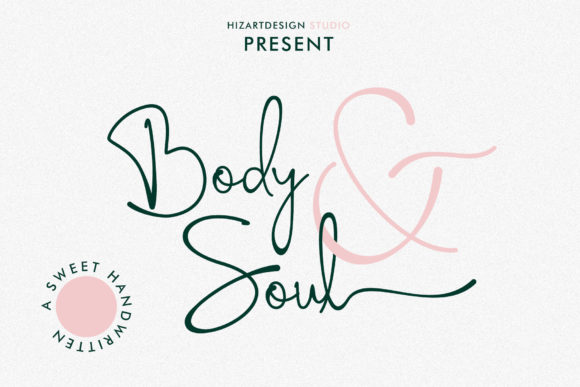
**Body & Soul: A Script Font with Heart and Grace**
Prepare to be captivated by Body & Soul, a script font that exudes elegance and charm. Crafted with meticulous care, each letter flows with a natural, handwritten grace that will elevate your designs to new heights.
Unleash your creativity with Body & Soul's versatile nature. Whether you're crafting heartfelt wedding invitations, creating exquisite stationary art, or making your social media posts shine, this font will add a touch of magic to every project.
Immerse yourself in the world of Body & Soul and discover a symphony of glyphs and swashes that will ignite your imagination. The PUA encoding ensures effortless access to a treasure trove of characters, giving you endless possibilities to express yourself.
With Body & Soul, you'll find a font that not only captivates the eye but also stirs the soul. Its delicate strokes and graceful curves evoke a sense of intimacy and warmth that will make your designs truly unforgettable.
Don't let your words be confined to ordinary fonts. Embrace the artistry of Body & Soul and watch as your designs blossom into masterpieces of expression.
**Body & Soul: The Perfect Font for Your Creative Endeavors**
Prepare to fall head over heels for Body & Soul, a script font that embodies the essence of romance and creativity. With its thin, elegant strokes and captivating style, this font will add a touch of magic to every project you undertake.
Imagine your wedding invitations adorned with the flowing grace of Body & Soul. The delicate curves will create a timeless elegance that will make your special day even more unforgettable.
Unleash your inner artist and create breathtaking stationary art that will leave a lasting impression. The graceful flourishes and intricate details of Body & Soul will transform your creations into works of art.
Captivate your audience with social media posts that shimmer with personality. Body & Soul's eye-catching style will make your words stand out from the crowd, ensuring that your message reaches its intended destination.
The possibilities are endless with Body & Soul. Whether you're a seasoned designer or simply seeking to add a touch of elegance to your personal projects, this font will become an indispensable tool in your creative arsenal.
Don't settle for ordinary fonts that fail to inspire. Embrace the beauty of Body & Soul and let your creativity soar to new heights.